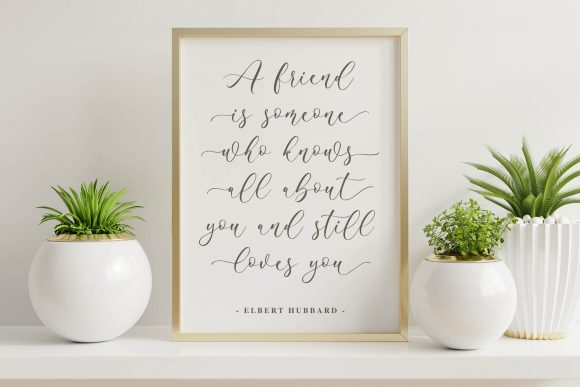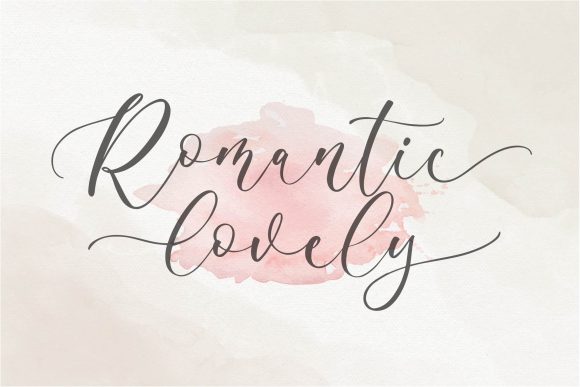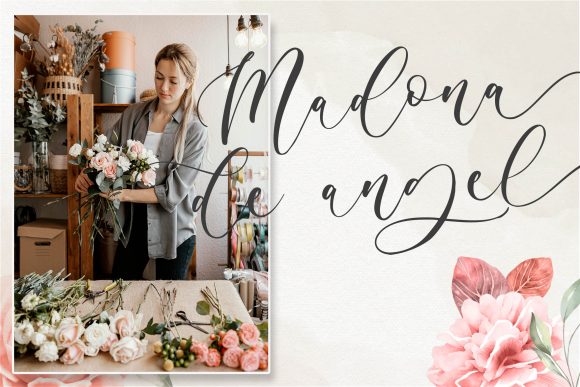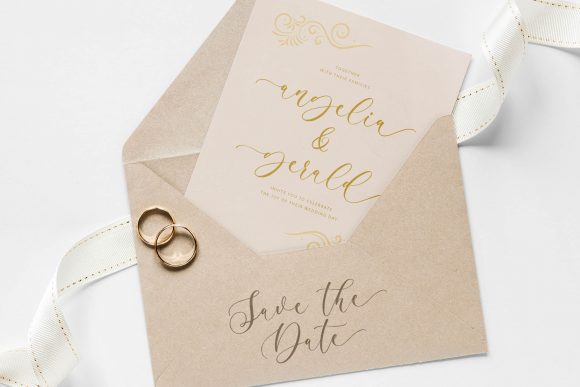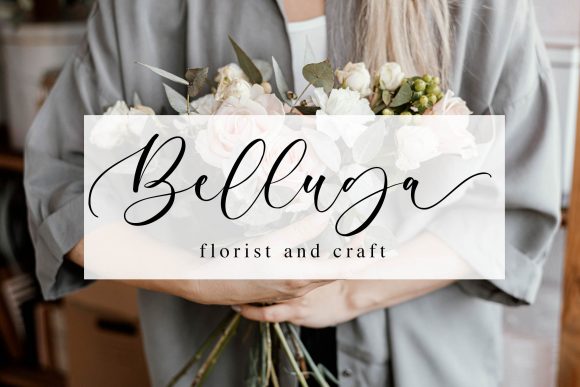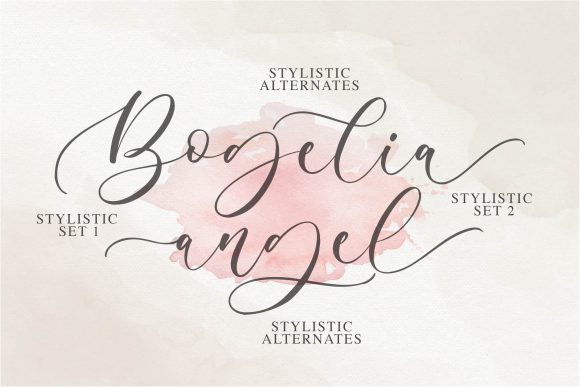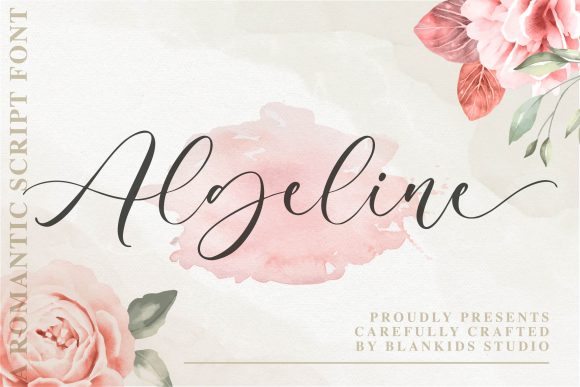
The Algeline Font: Elevating Designs with Luxury and Elegance
Have you ever been in the midst of working on a design project, only to find yourself stuck on the perfect font? I recall a particularly frustrating experience where I was tasked with creating a luxury branding package for a high-end client. The brief was simple: convey sophistication, elegance, and a sense of refinement. But, as I scrolled through font after font, nothing seemed quite right. That was until I stumbled upon the Algeline Font.
A Game-Changing Discovery
The Algeline Font is a beautiful, light handwritten font that exudes a unique feel and stunning impact. Its elegant lines and curves instantly added a luxury spark to my design project, transforming it from ordinary to extraordinary. What sets Algeline apart is its PUA (Private Use Area) encoding, which allows for easy access to an array of amazing glyphs and ligatures, making it incredibly versatile for various design applications.
- ✨ Elegant and sophisticated design that’s perfect for luxury branding
- ✅ PUA encoded for easy access to glyphs and ligatures
- 💫 Highly versatile and adaptable to different design projects
- 🎨 Beautifully crafted to add a unique touch to any design
While the Algeline Font is exceptional, there are a few minor considerations to keep in mind. For instance, ⚠️ some users might find the font’s light weight challenging to read in certain contexts, such as body text. Additionally, 🤔 accessing the full range of glyphs and ligatures might require a bit of exploration, especially for those new to PUA-encoded fonts.
The Designer Inspiration Behind Algeline
While the true story behind Algeline’s creation remains a mystery, it’s easy to imagine that its designer was inspired by the elegance of handwritten scripts and the sophistication of luxury branding. Perhaps they sought to craft a font that would effortlessly elevate designs, making them stand out in a crowded creative landscape.
Q: What makes Algeline suitable for luxury branding?
A: Algeline’s elegant design, unique feel, and access to glyphs and ligatures make it an excellent choice for luxury branding, allowing designers to create sophisticated and refined visual identities.
Q: Can I use Algeline for both digital and print designs?
A: Absolutely! Algeline’s versatility makes it suitable for a wide range of design applications, from digital projects like websites and social media graphics to print materials such as brochures and business cards.
Q: Is Algeline easy to read?
A: While Algeline is primarily a light, elegant font, its readability can depend on the context. For body text, a larger size or careful line spacing might be necessary to ensure optimal readability.